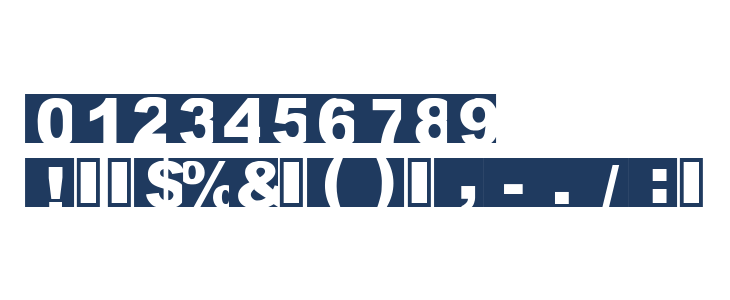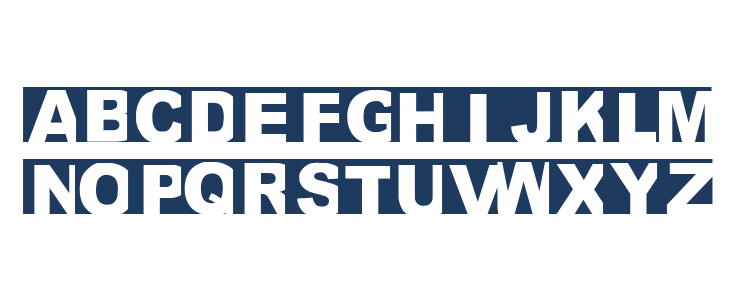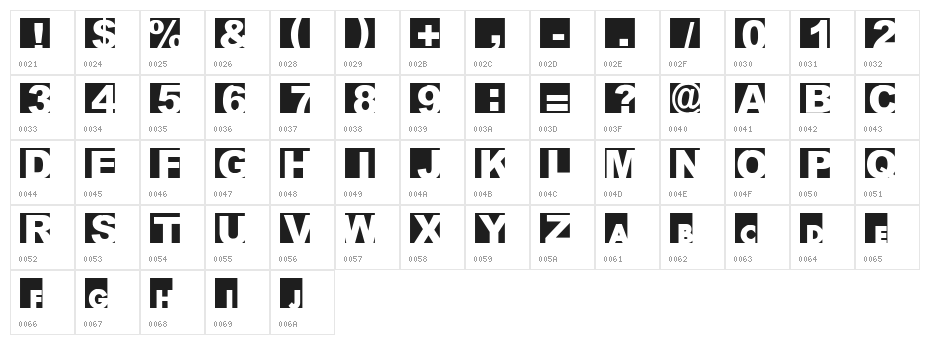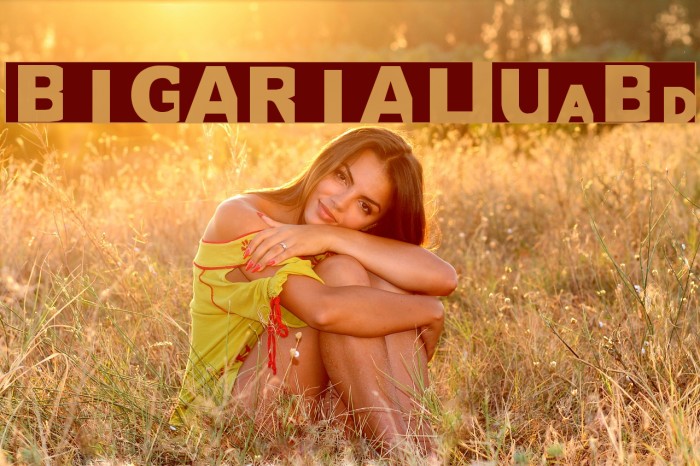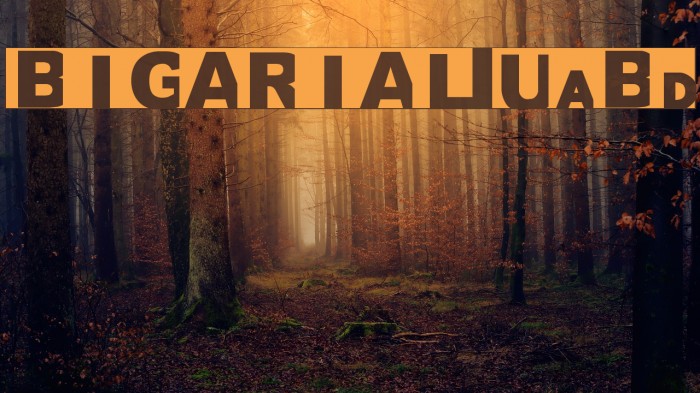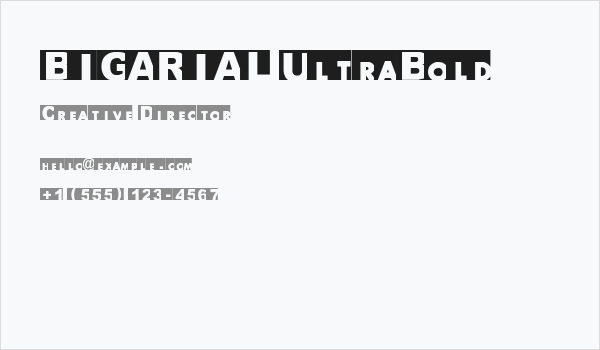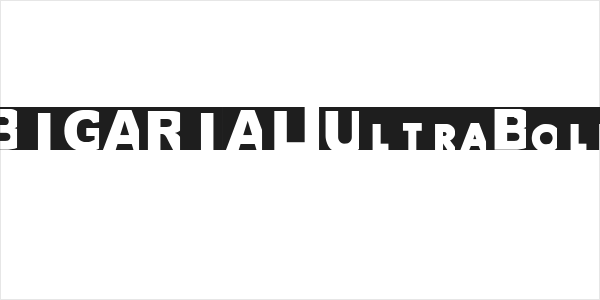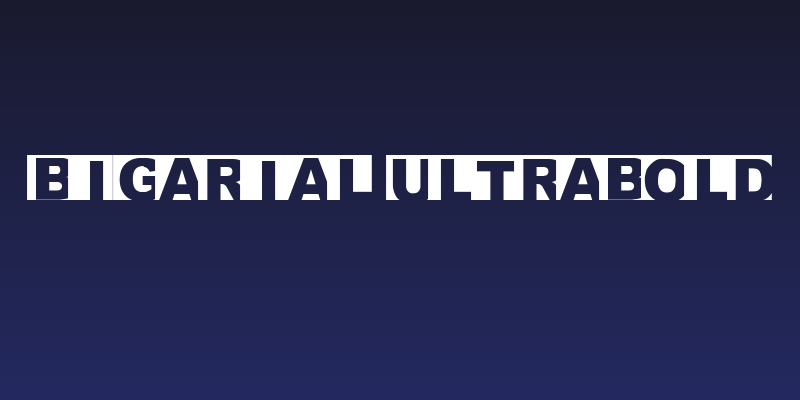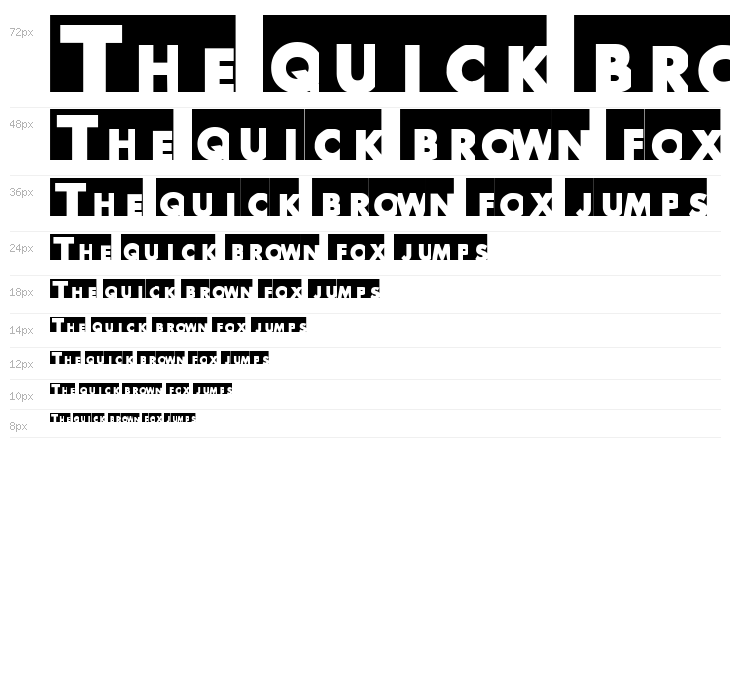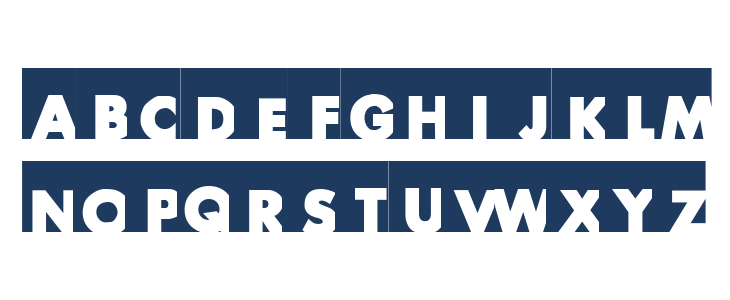
BIGARIAL UltraBold Font
BIGARIAL UltraBold Description
This font is characterized by its ultra-bold and impactful design, making it ideal for attention-grabbing headlines and statements. The letters are thick and robust, with a strong presence that commands attention. The uppercase and lowercase letters maintain a consistent weight, providing a uniform appearance across the alphabet. The numerals are equally bold, ensuring they stand out in any context. Special characters are designed with the same boldness, ensuring they integrate seamlessly with the rest of the font. The overall style is modern and assertive, suitable for projects that require a strong visual impact.
| Proposed Projects | Ideal for advertising, posters, branding, and any project requiring bold, attention-grabbing text. |